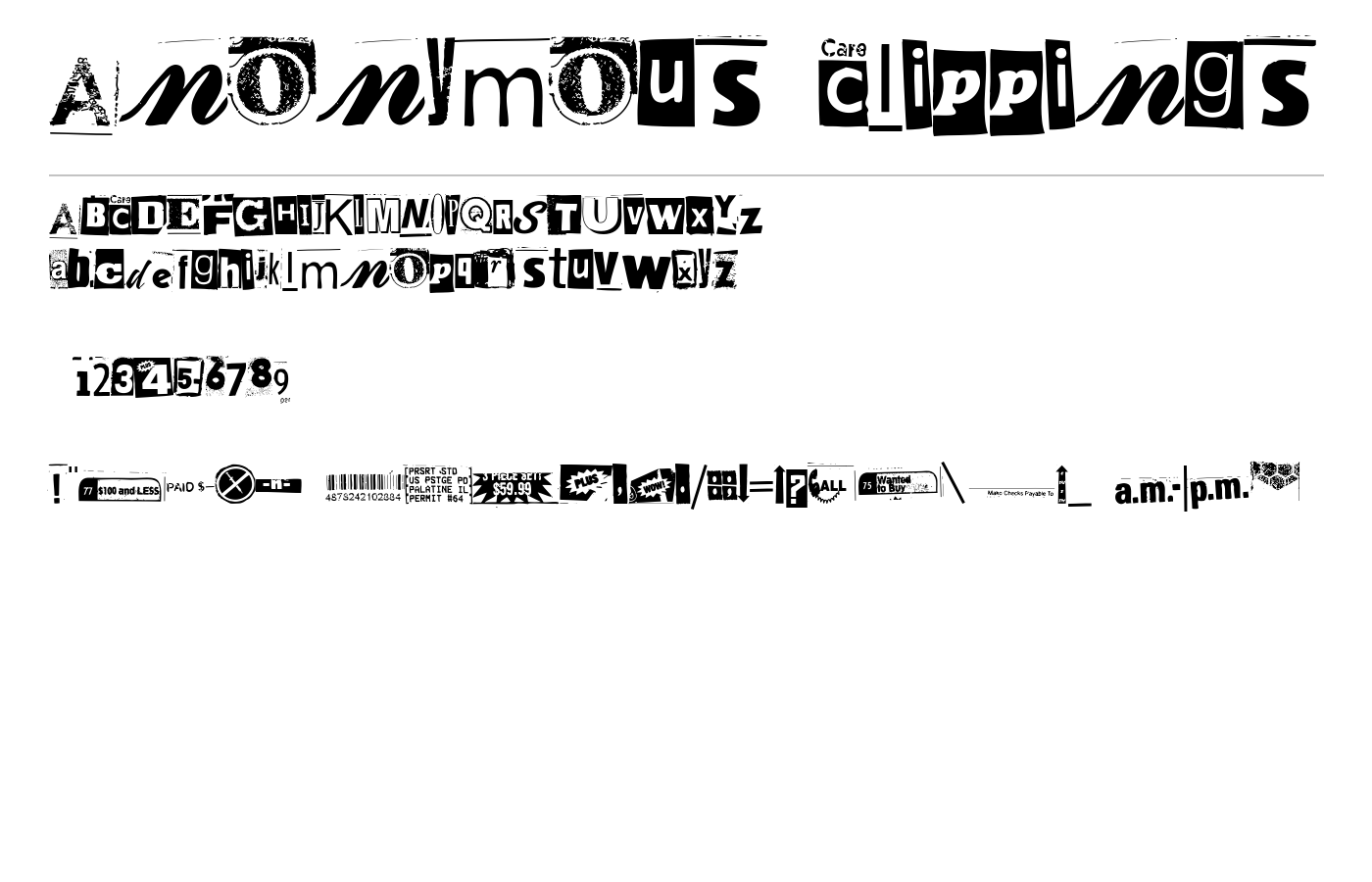
Anonymous Clippings is a bold, playful display font that mimics the look of a ransom note with mixed letter styles and uneven spacing. Its eclectic mix of serif, sans serif, and script styles in varying weights and textures creates a chaotic, quirky vibe perfect for eye-catching headlines, posters, and unconventional branding. This font works best where a fun, mysterious, or edgy mood is desired, adding character and a hand-crafted feel to creative projects.
Anonymous Clippings Font